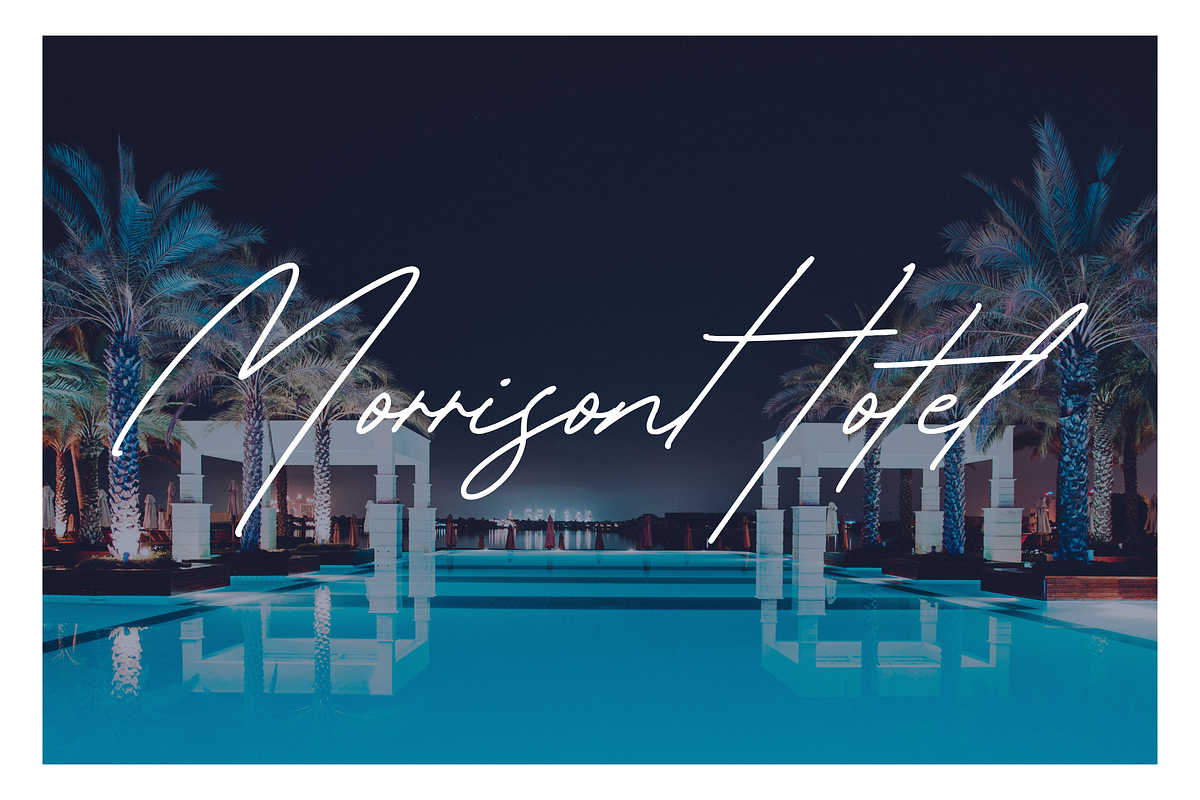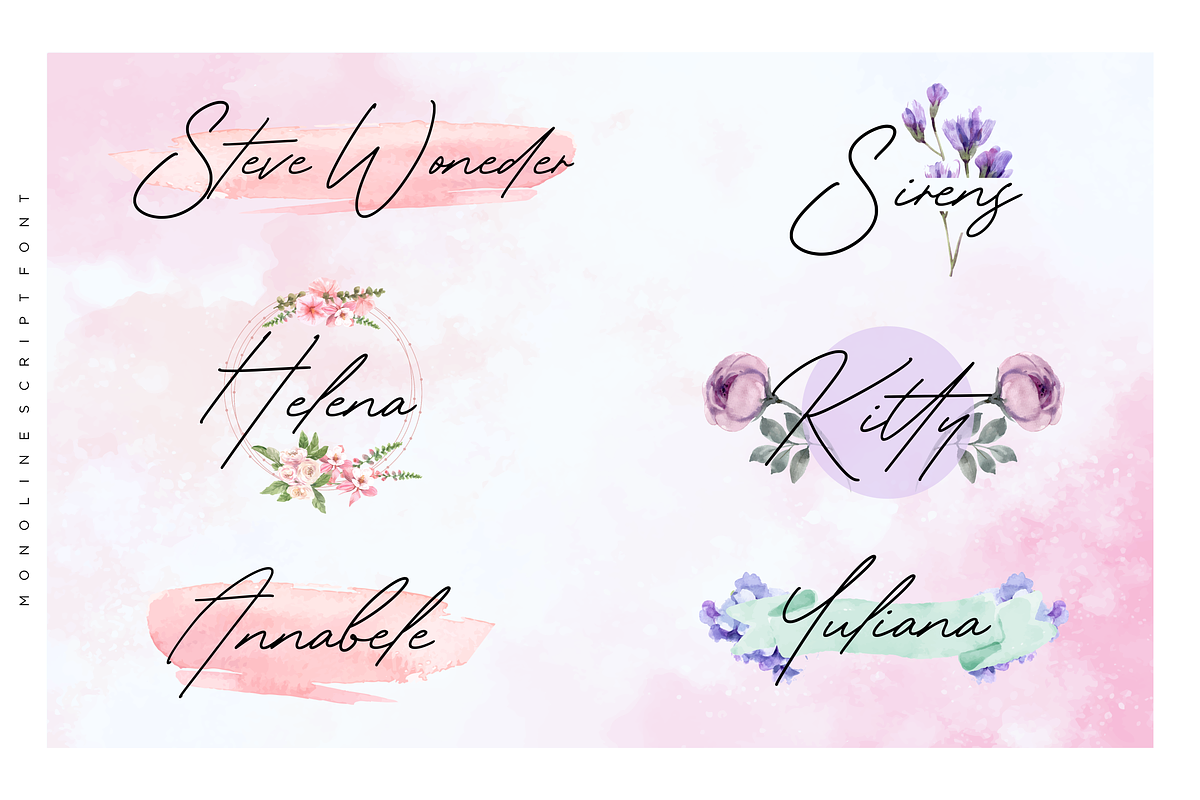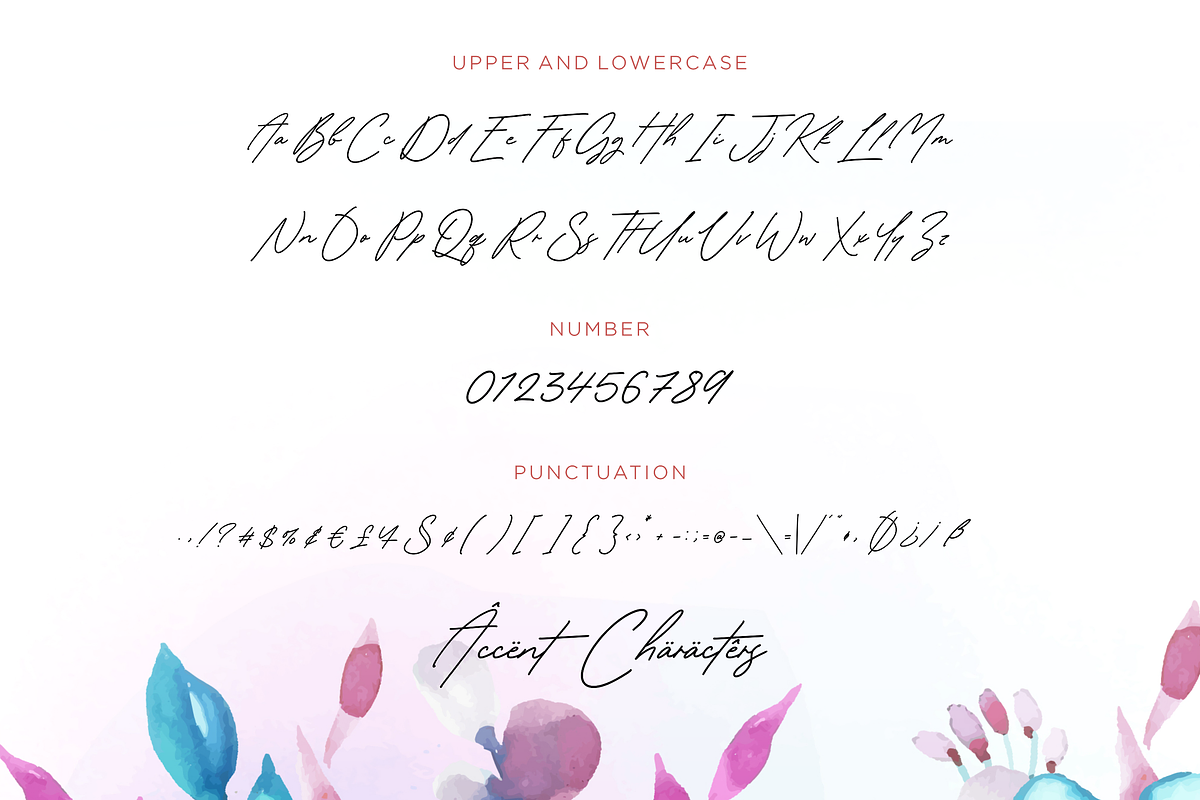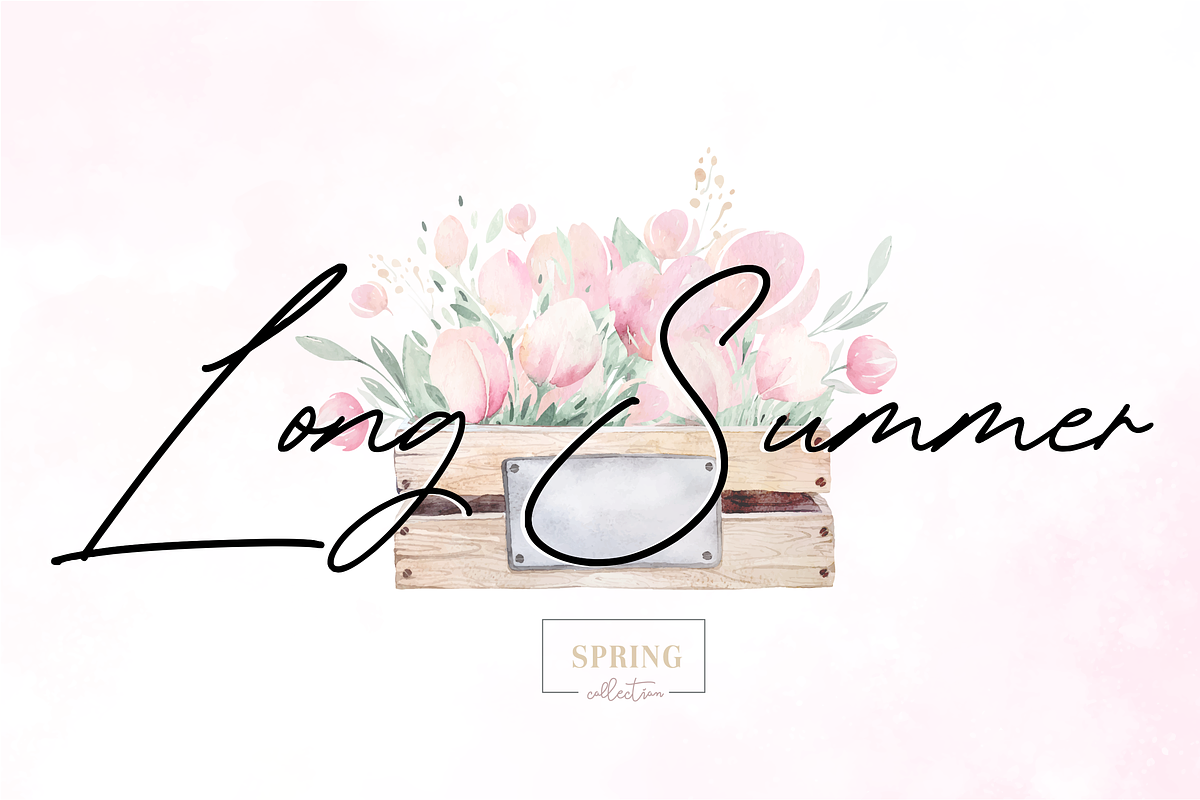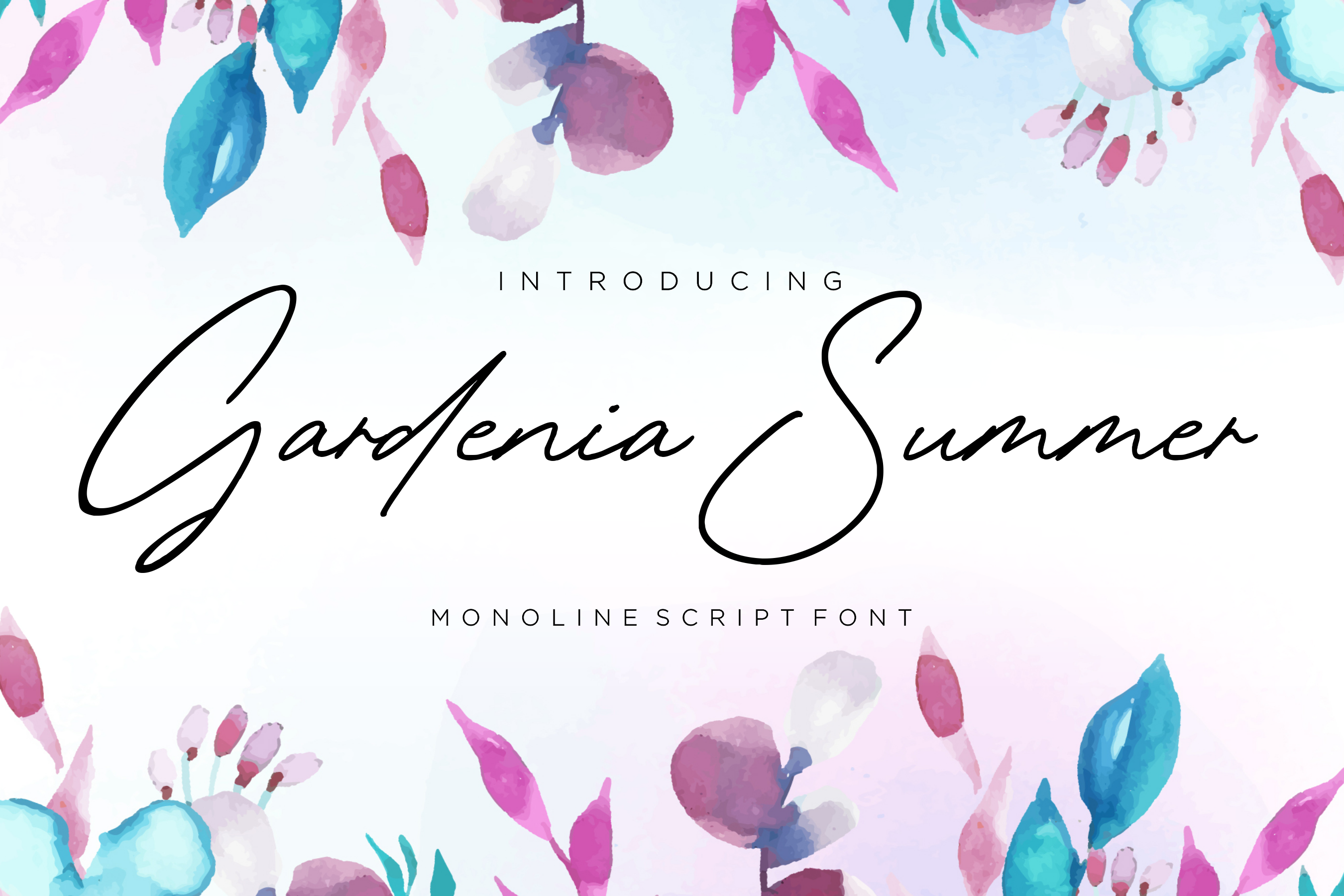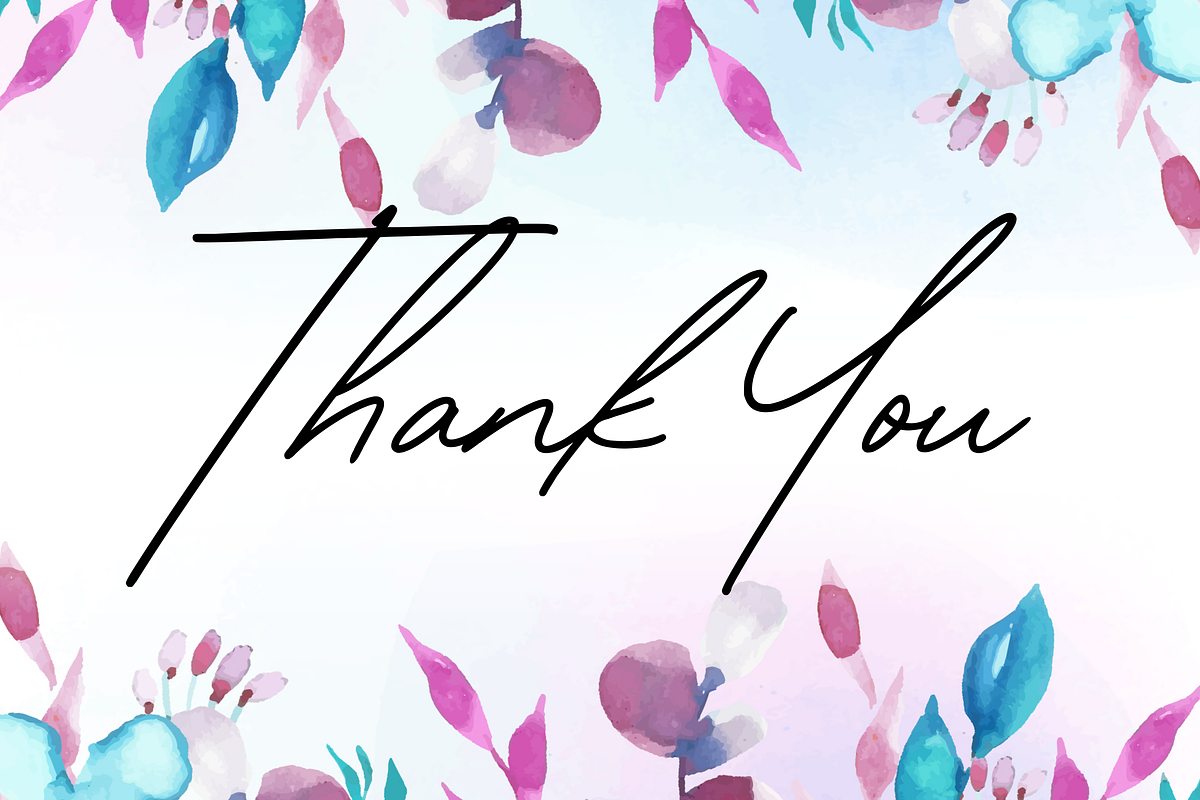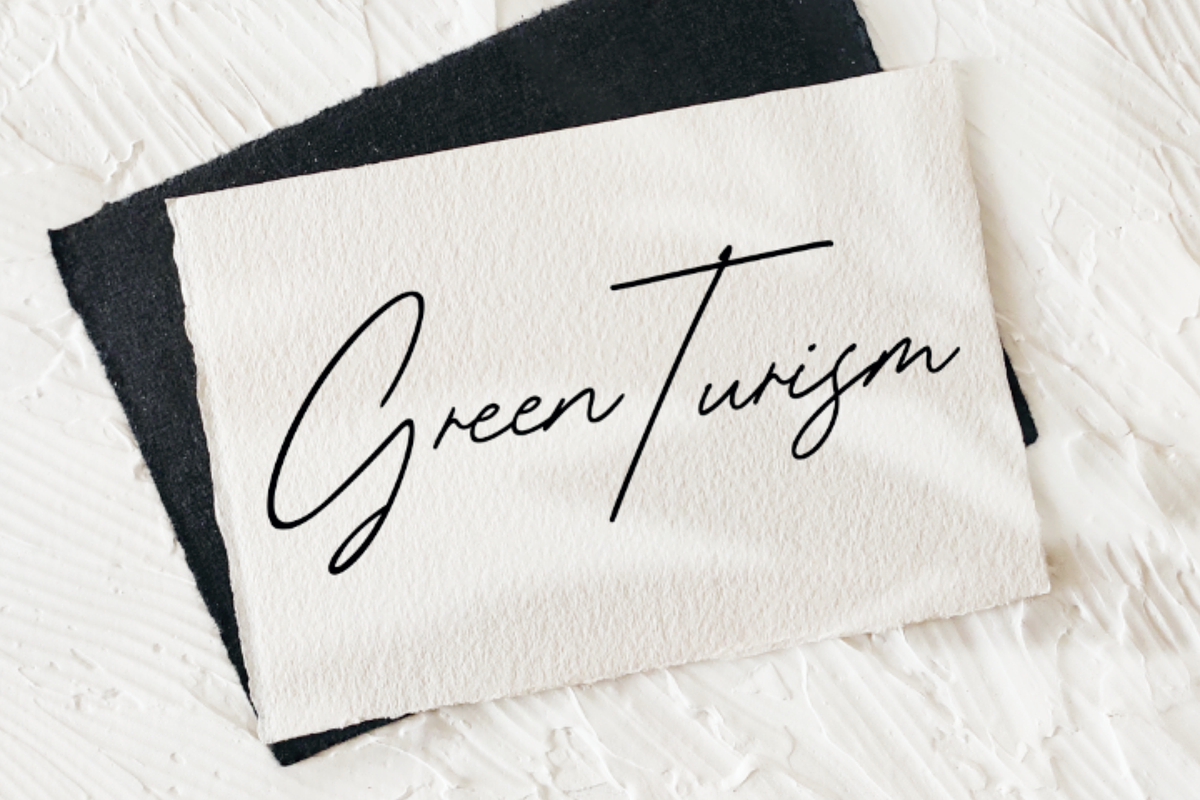
Gardenia Summer Monoline Script Font
Proudly Present, Gardenia Summer Font
Gardenia Summer feels equally charming and elegant. This stunning monoline script font is a stylish homage to classic calligraphy. It features a varying baseline, smooth lines, gorgeous glyphs and stunning alternates.